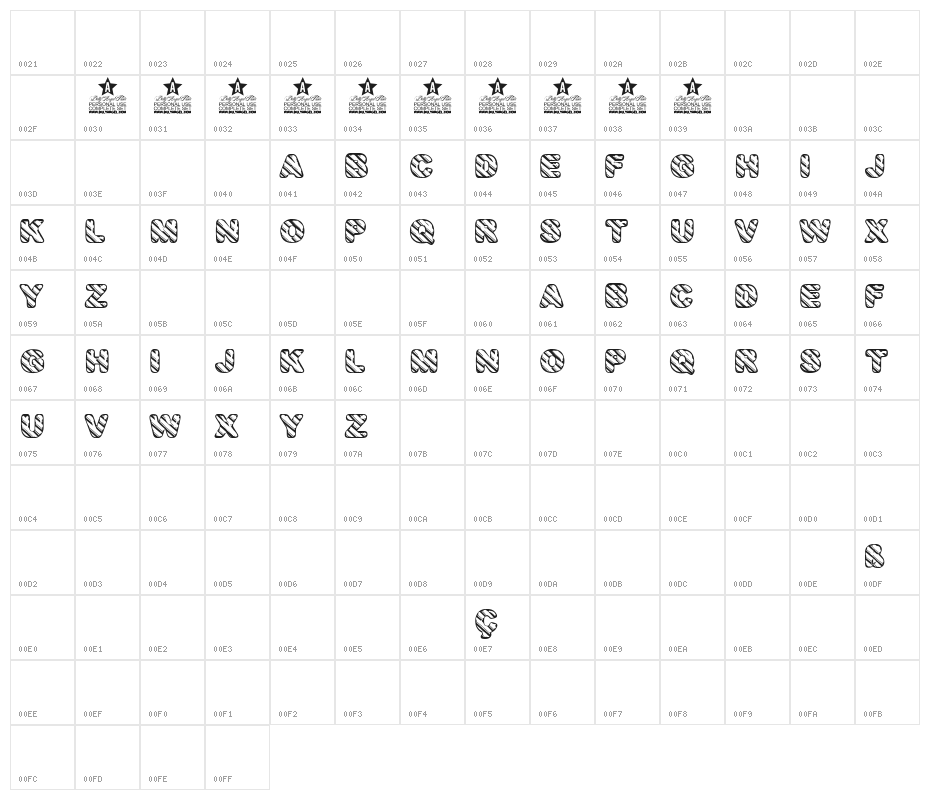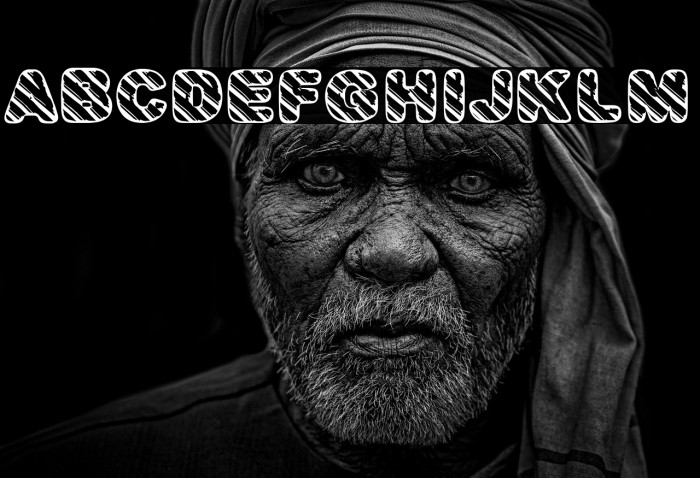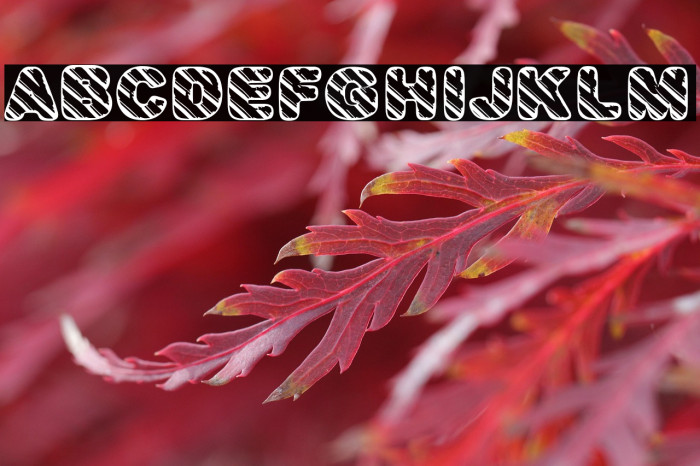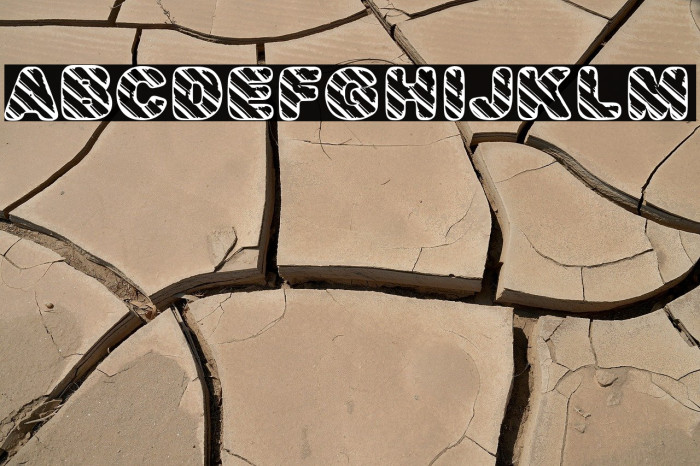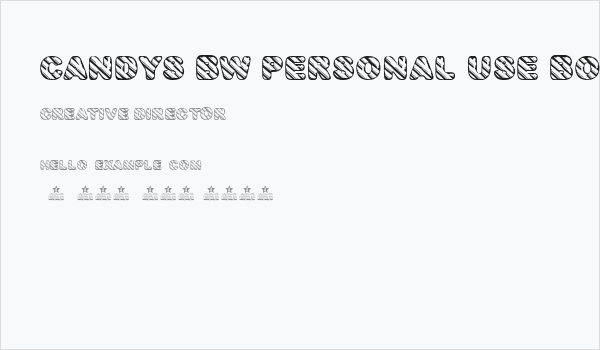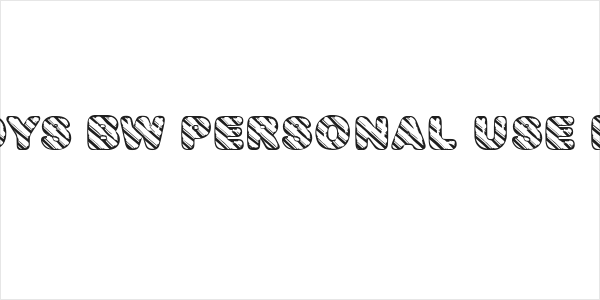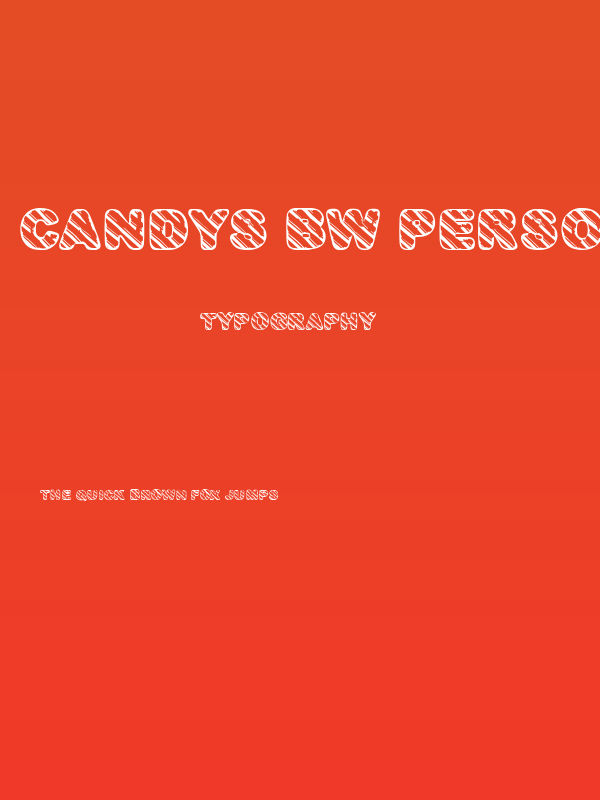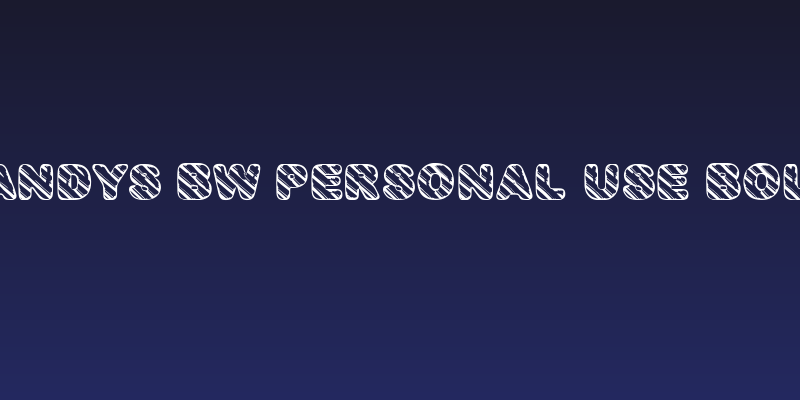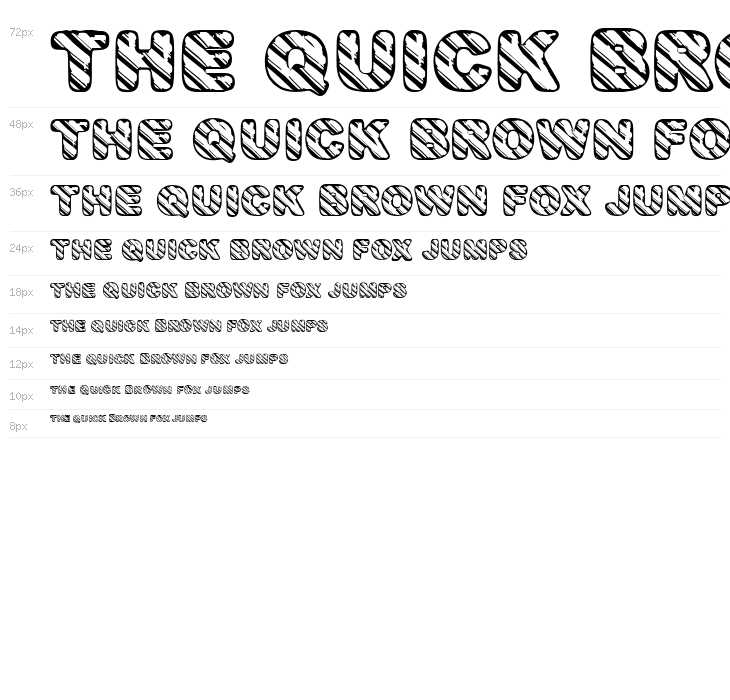
CANDYS BW PERSONAL USE Bold Font
CANDYS BW PERSONAL USE Bold Description
This font features a playful and bold design with a unique striped pattern filling each character. The letters are rounded and thick, giving them a friendly and approachable appearance. The consistent use of stripes adds a decorative element that makes the font stand out. It is highly legible and maintains a uniform weight across all characters, making it suitable for various creative projects. The font's style is both modern and whimsical, appealing to audiences looking for something fun and eye-catching.
| Overall Style | Modern, Whimsical |
| Proposed Projects | Ideal for children's book covers, playful branding, party invitations, and creative posters. |